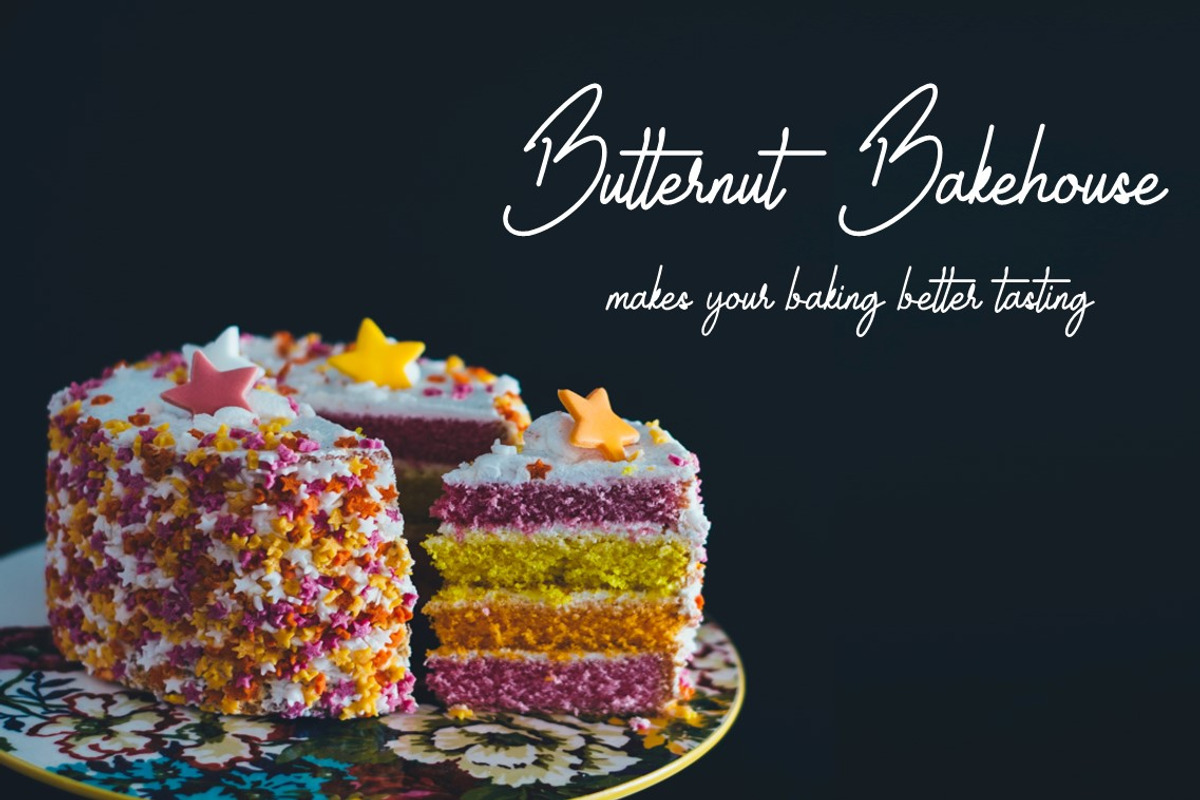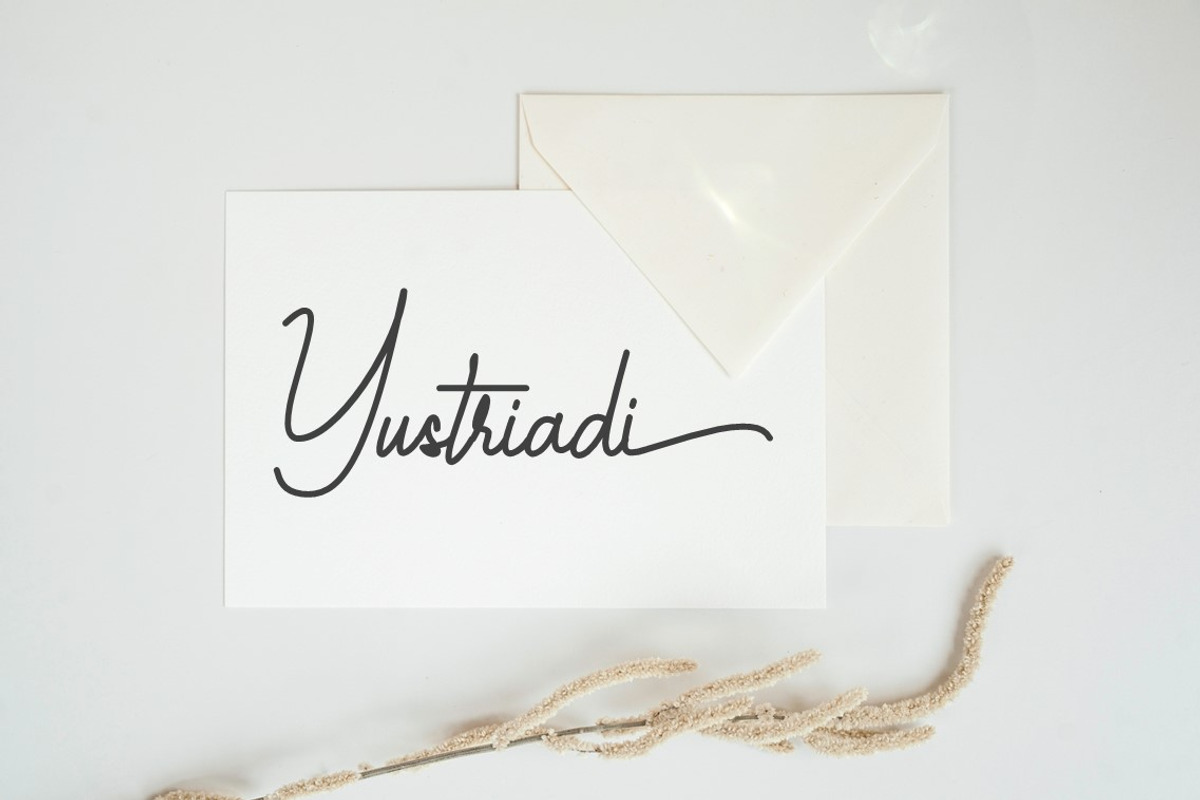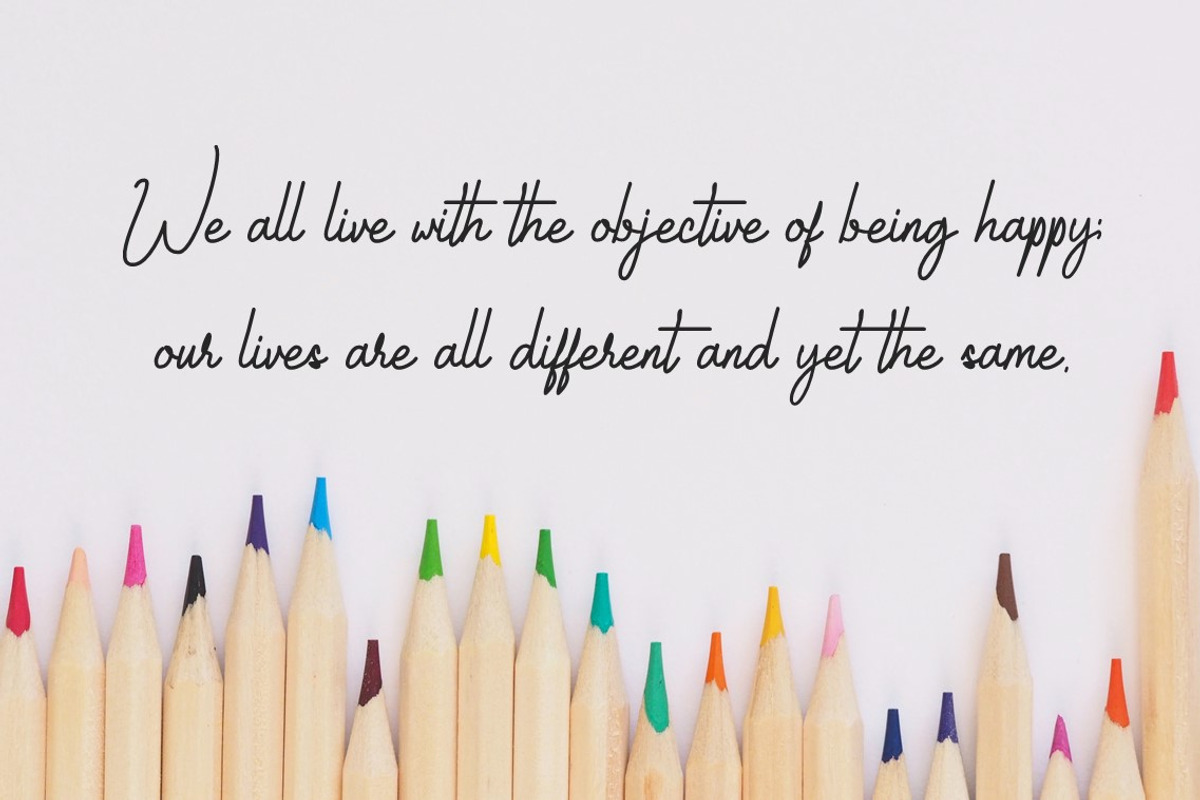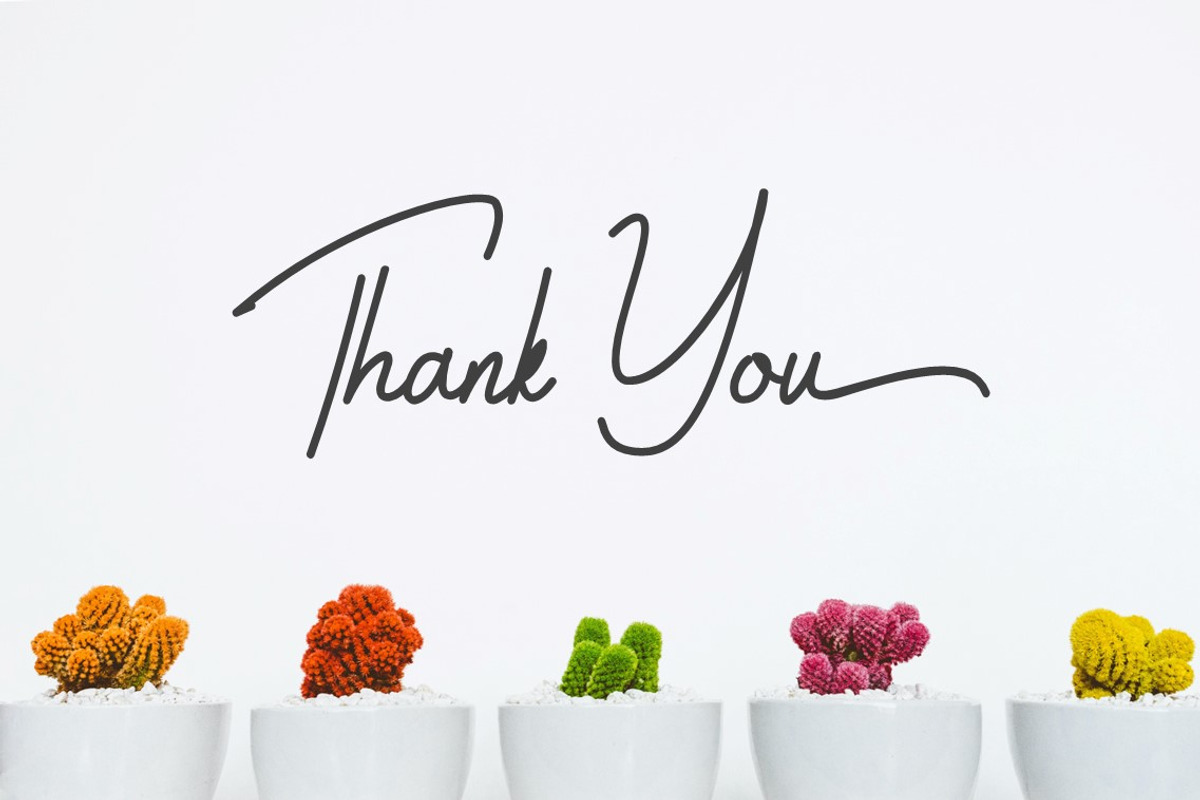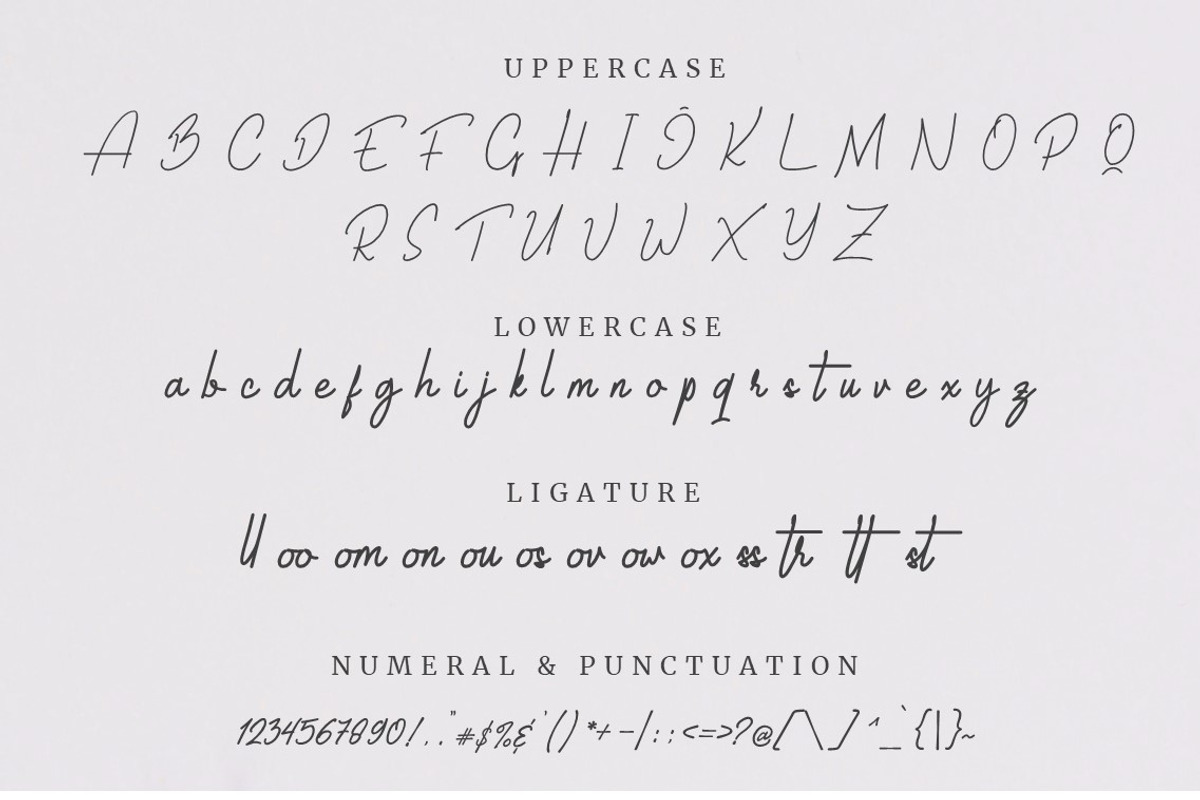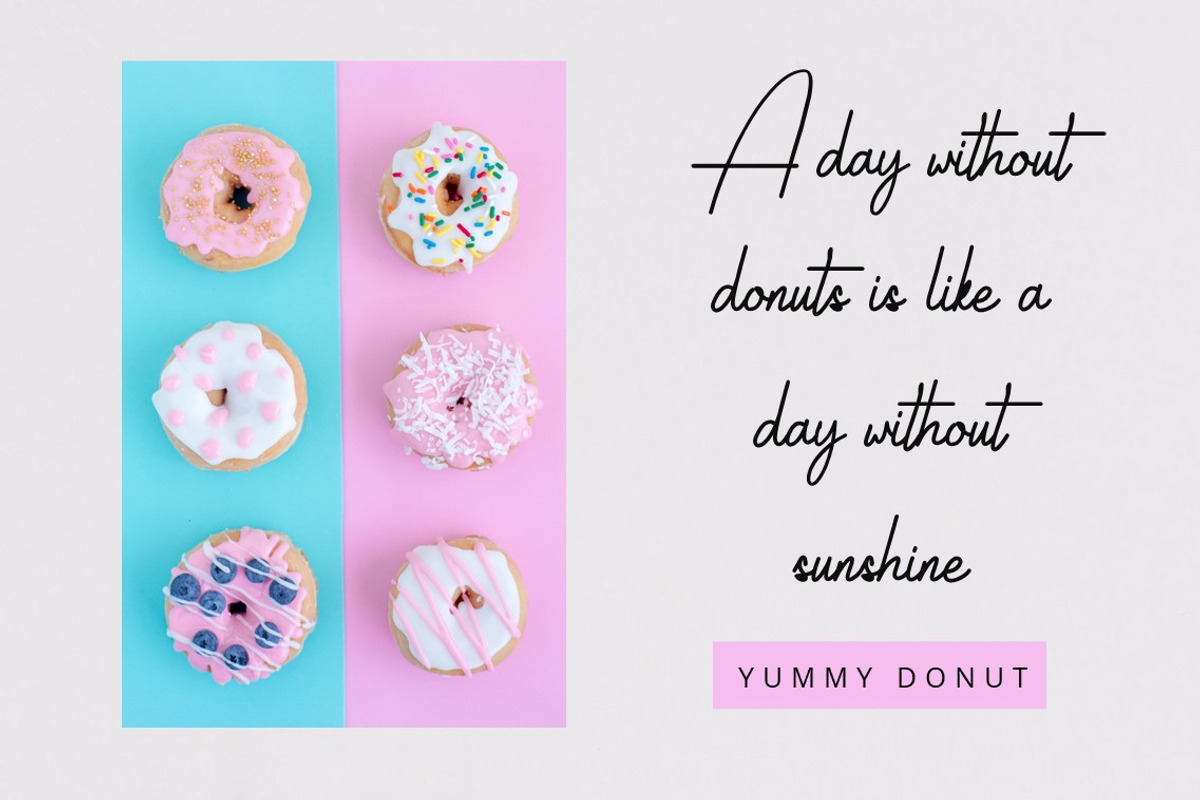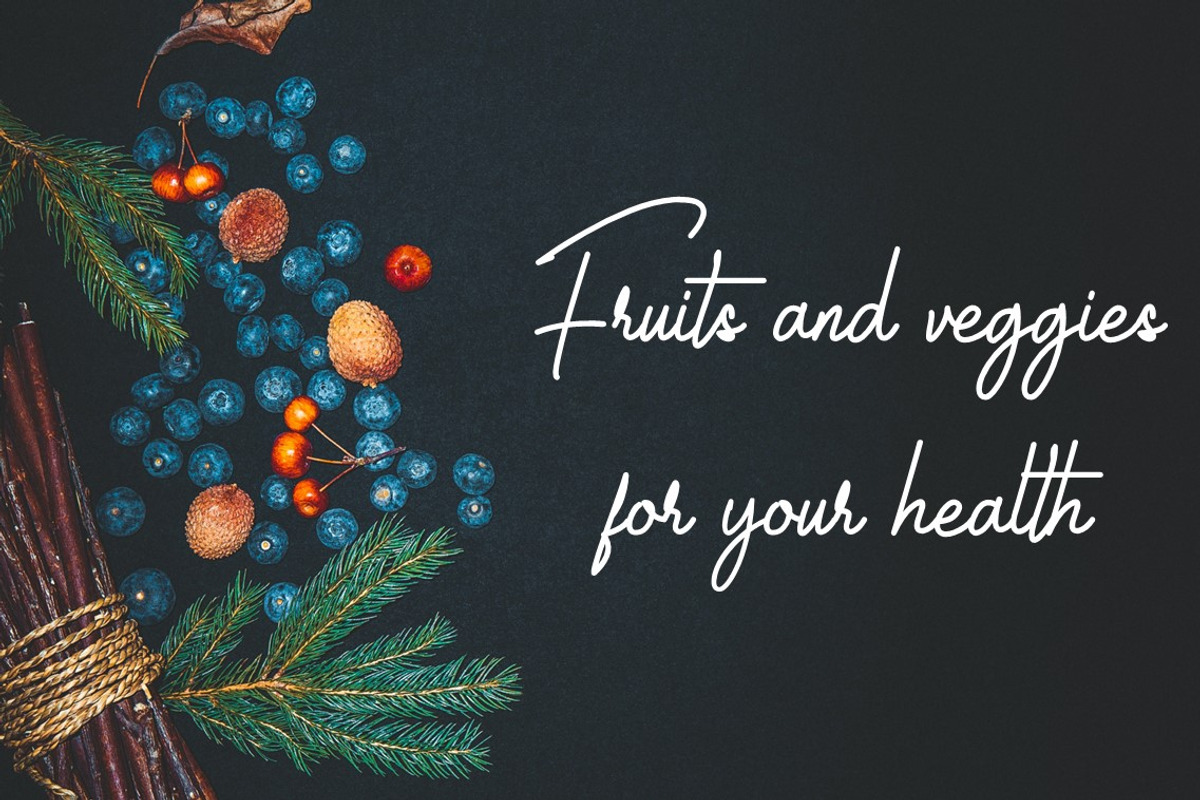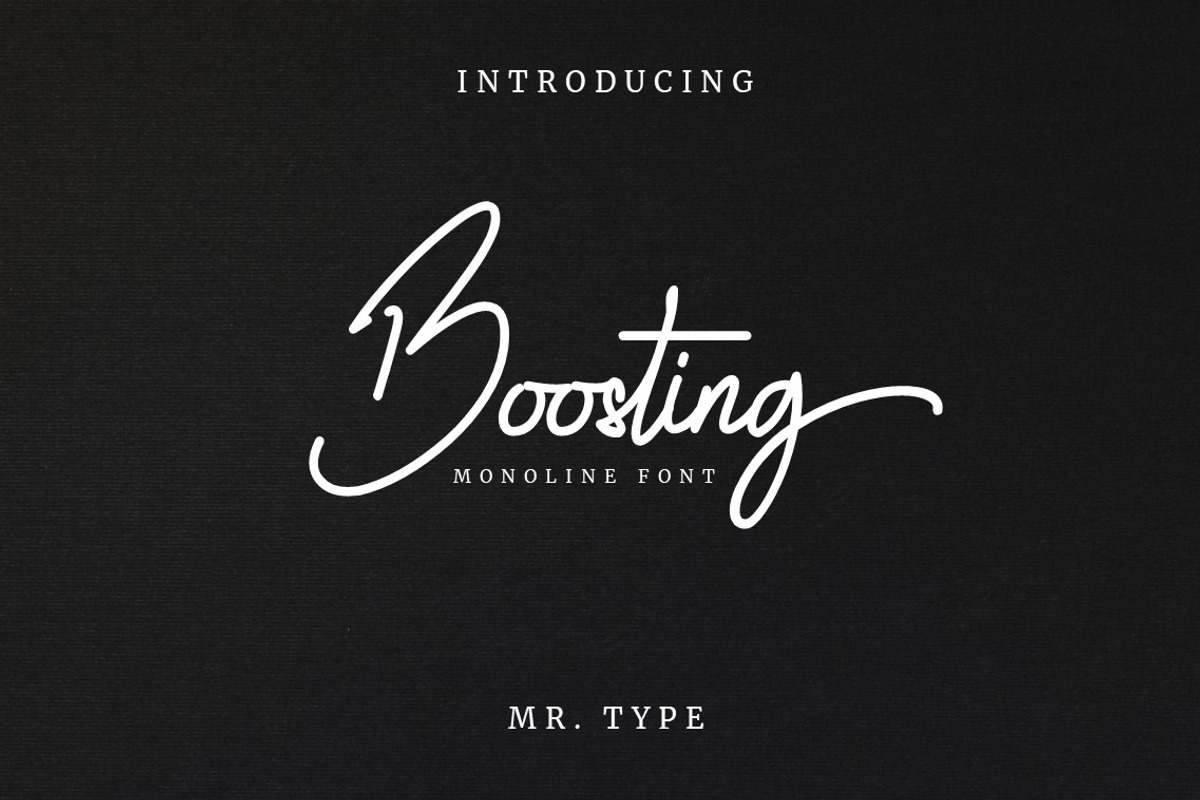
Boosting
Boosting is a simple and elegant signature monoline font.
Boosting is suitable for many different designs for bussines card, quotes, social media, signature, wedding invitations, advertisements, product designs, label, photography, watermark and more.